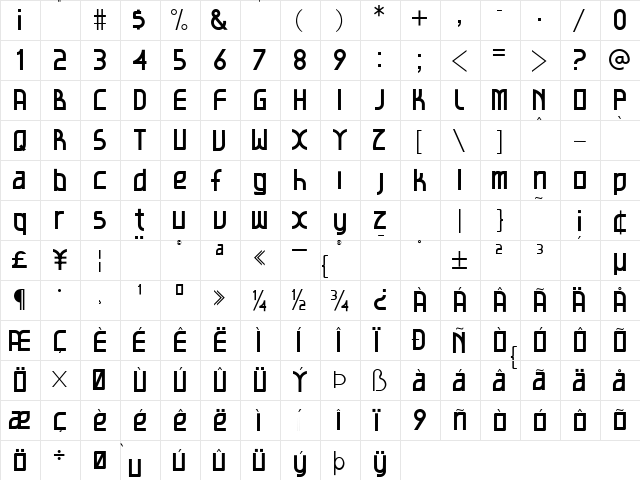
Basement-Medium Bold
| Foundry | Armando Nhabanga |
| Designer | Armando Nhabanga |
Basement-Medium is a composed and adaptable typeface that performs quietly and consistently across a wide range of design contexts. The heavy weight commands attention and anchors typographic hierarchies.